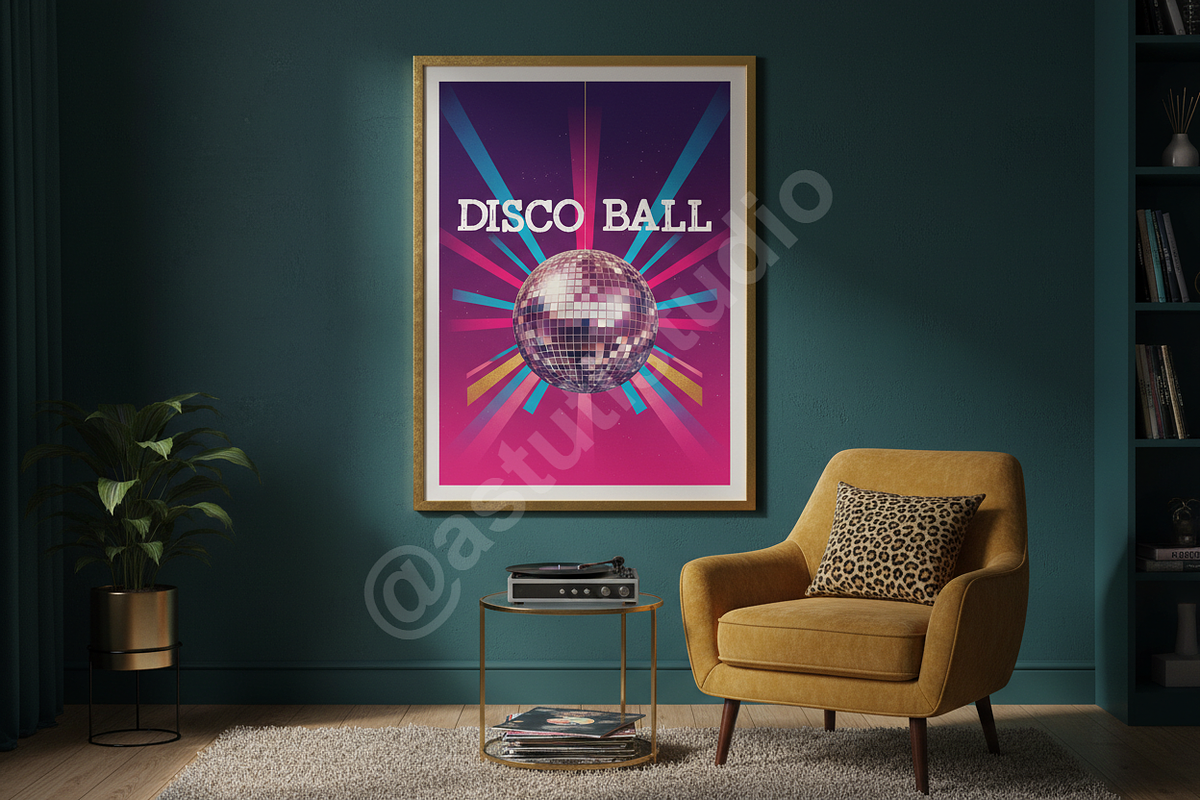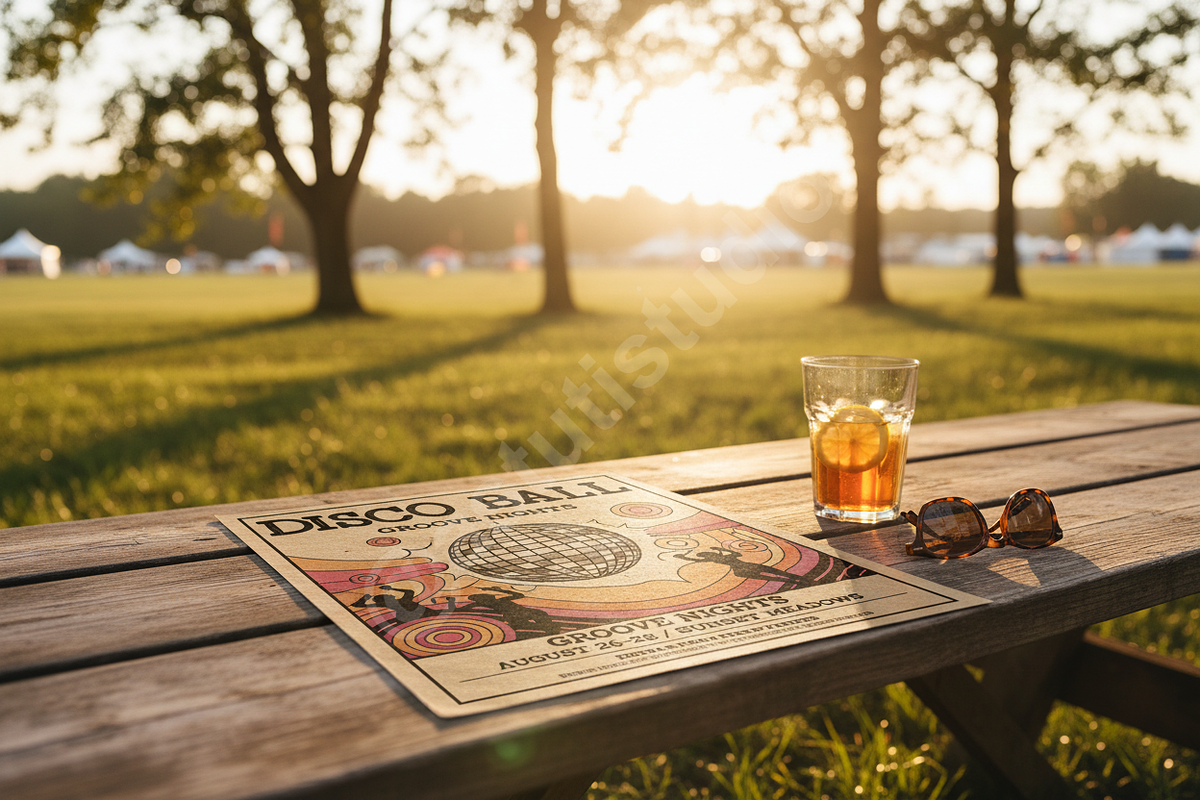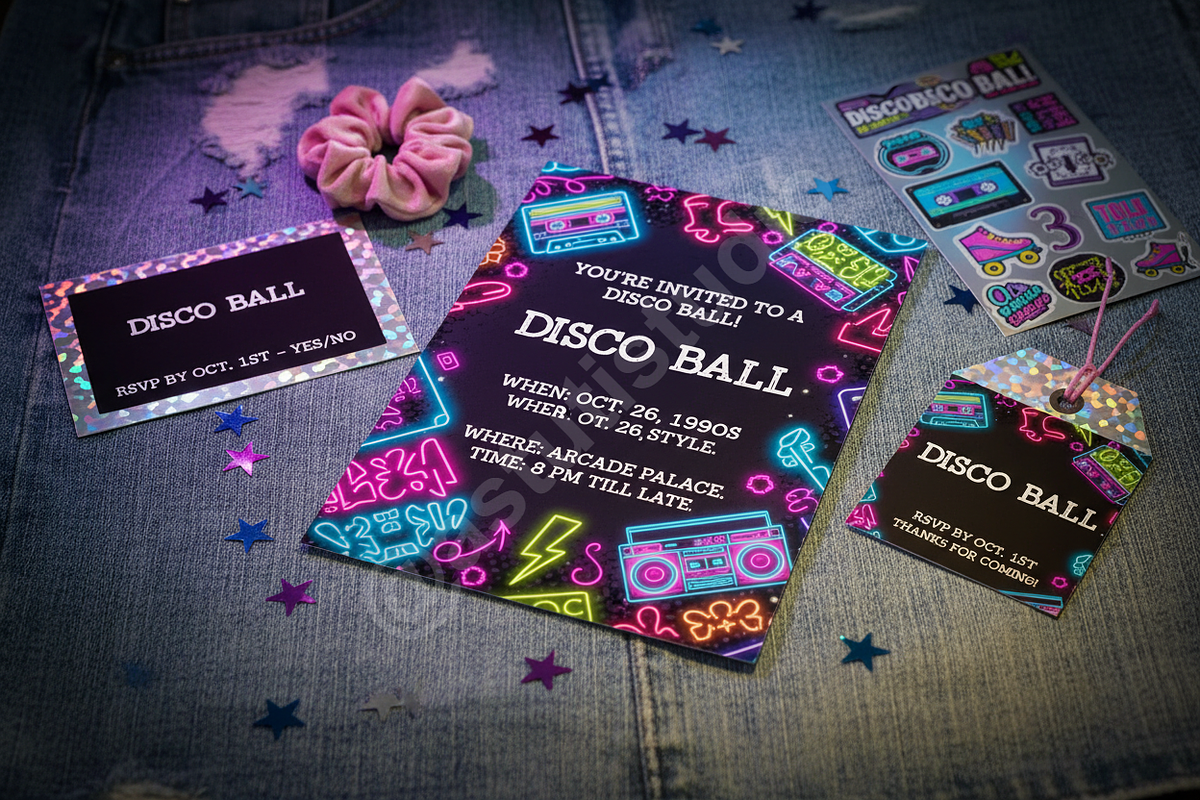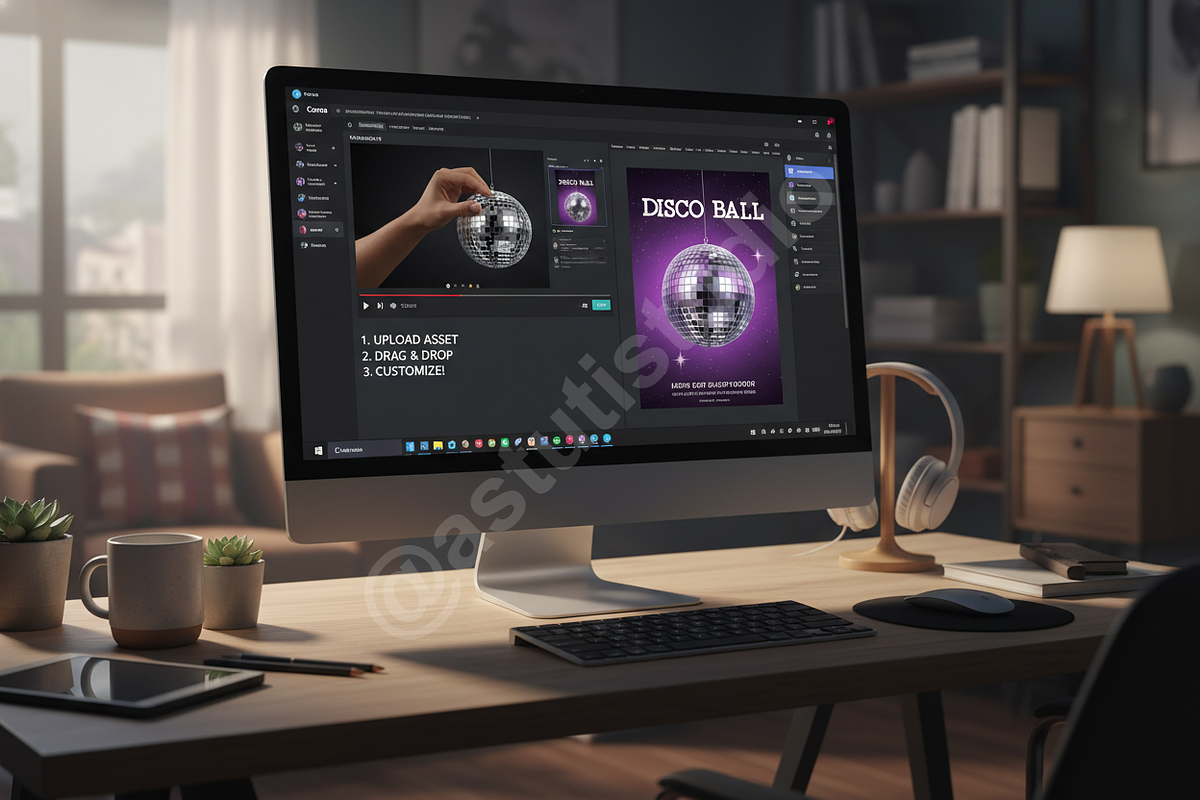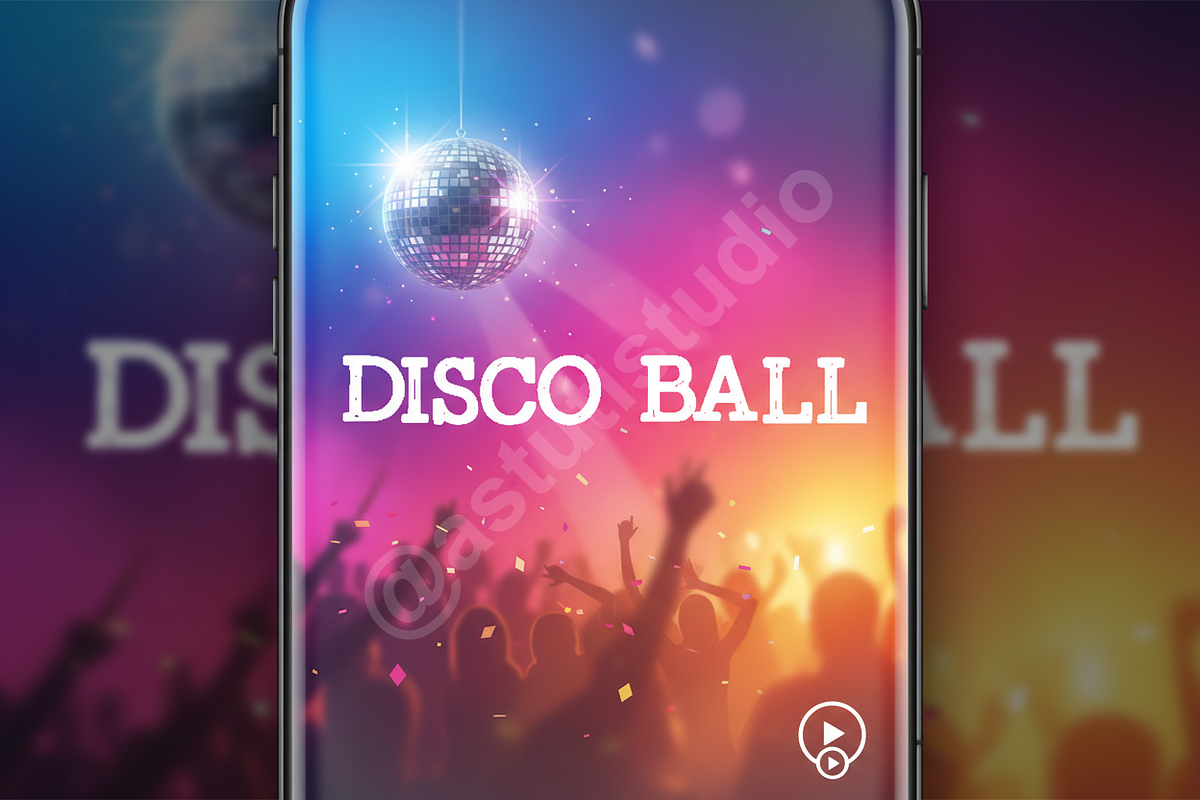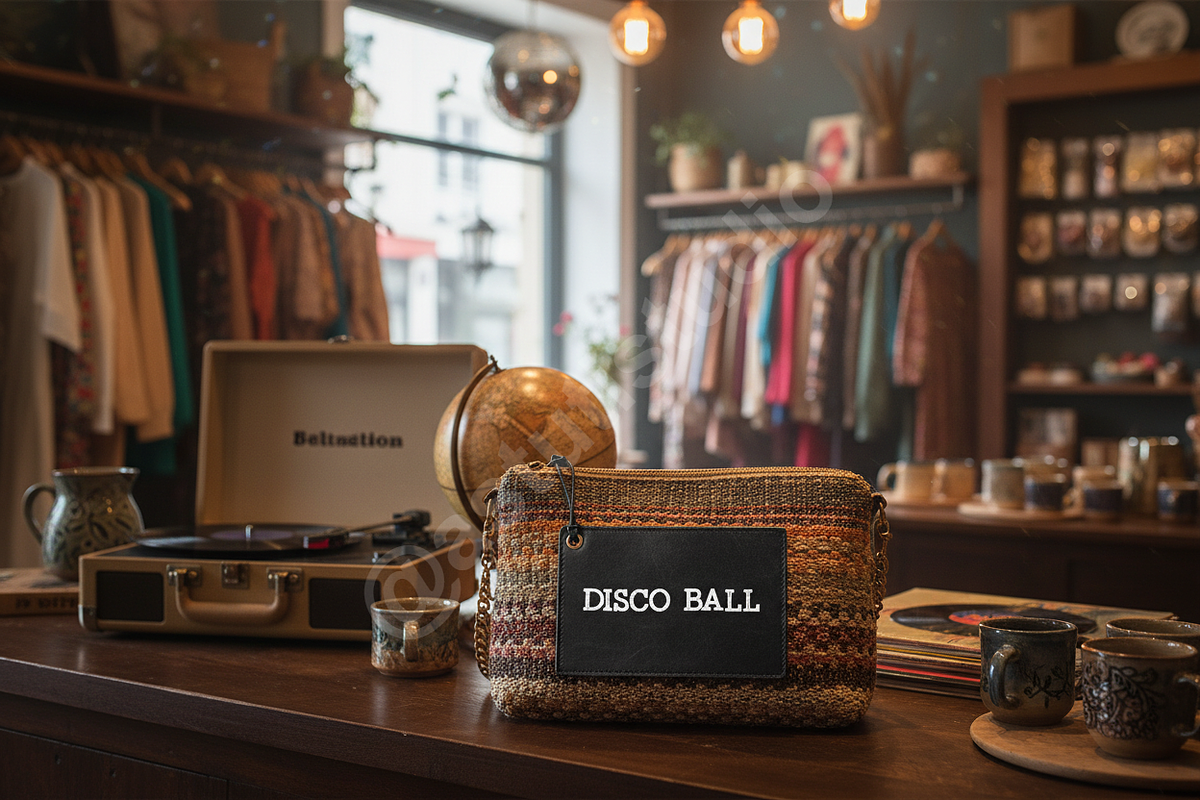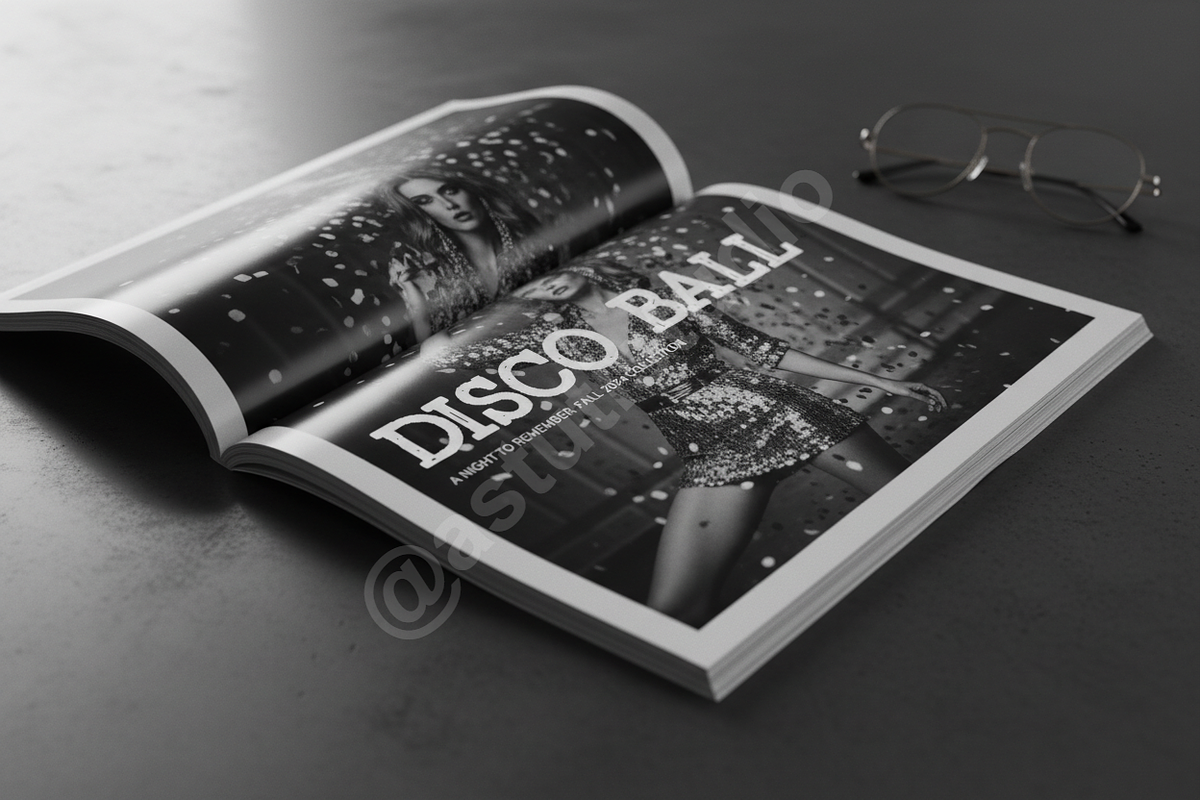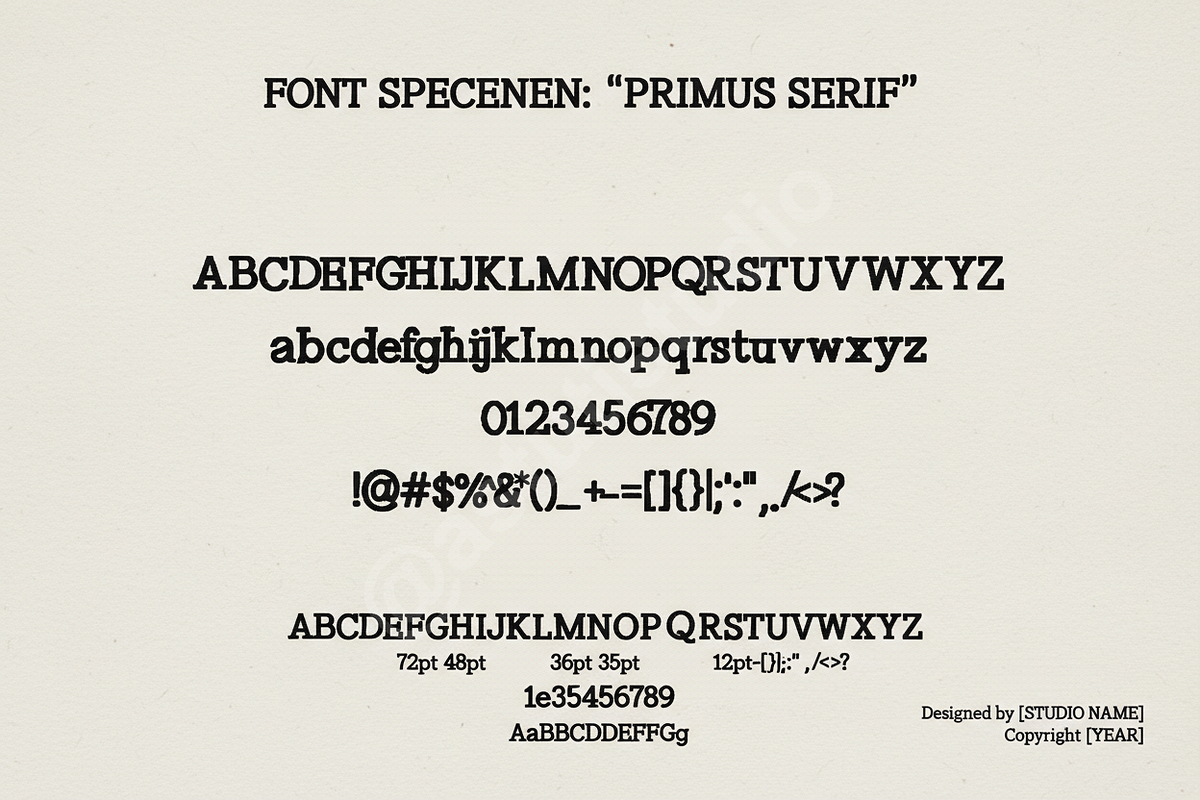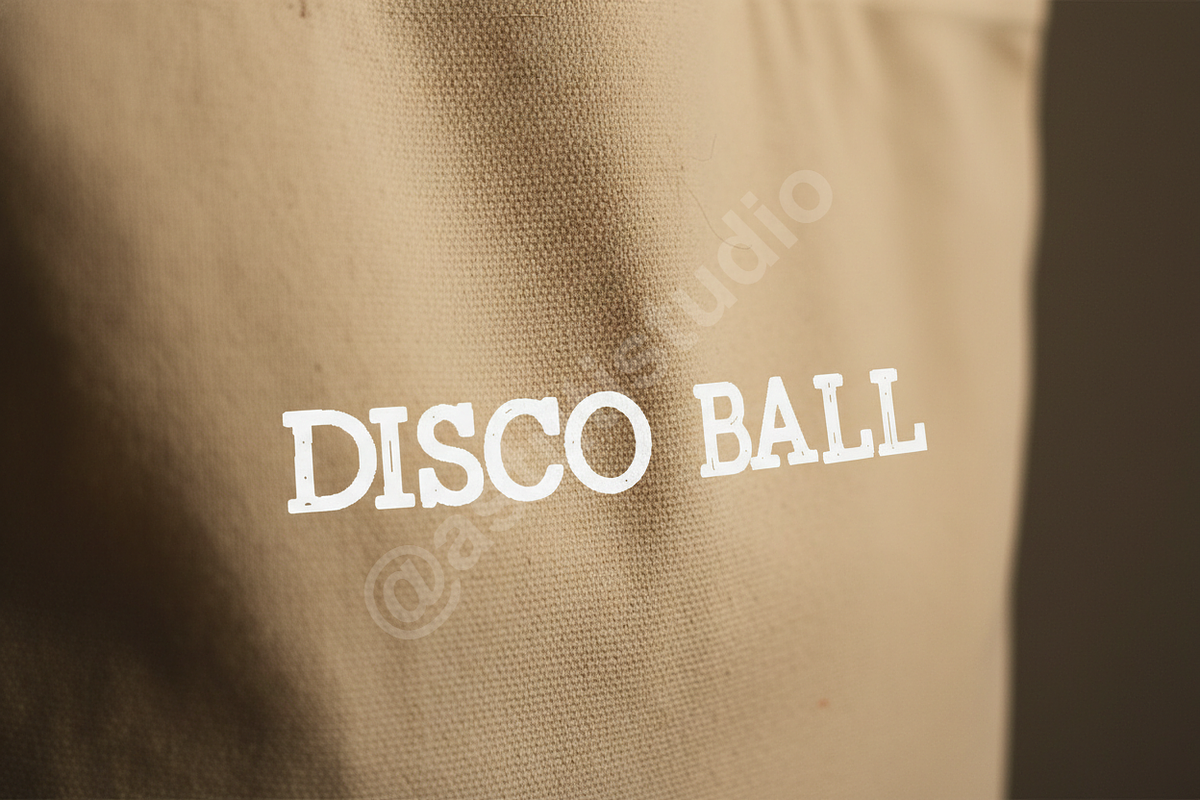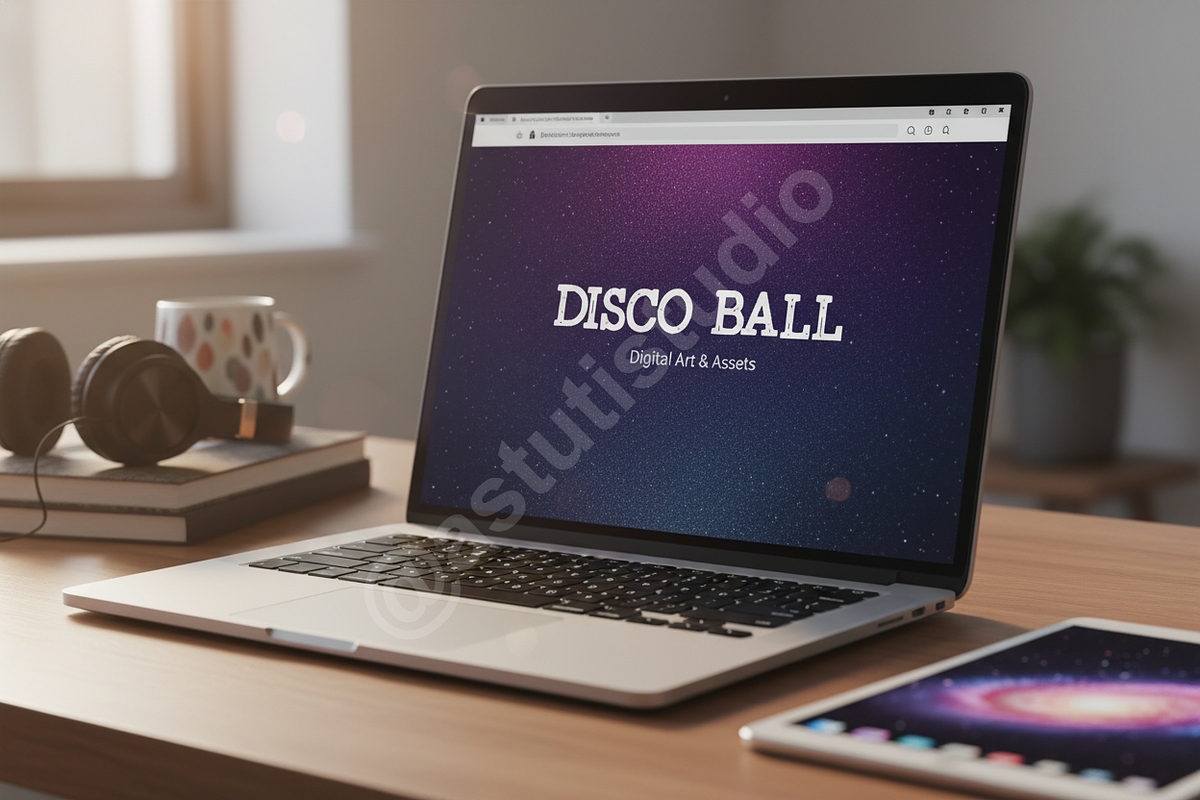
Doci – Elegant Modern Serif Font
Introducing Doci, an exquisitely crafted modern serif font designed to elevate your creative projects. Developed with precision and a keen eye for elegance, Doci embodies sophistication, making it the perfect choice for luxury branding, high-end editorial layouts, and impactful social media campaigns. This premium typeface from our studio promises to deliver a distinct and memorable visual experience.
- Elegant & Modern Serif Design: A timeless aesthetic with a contemporary edge.
- Versatile Application: Ideal for headlines, body text, logos, and branding materials.
- Readability: Meticulously kerned and spaced for optimal legibility across various mediums.
- Professional Craftsmanship: Every character refined to meet the highest design standards.